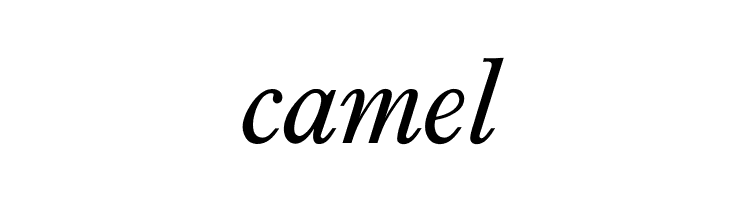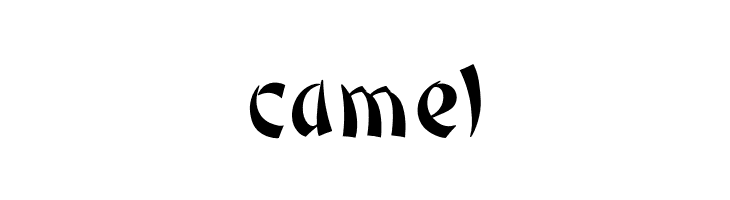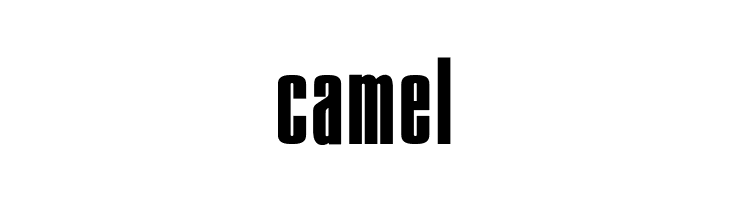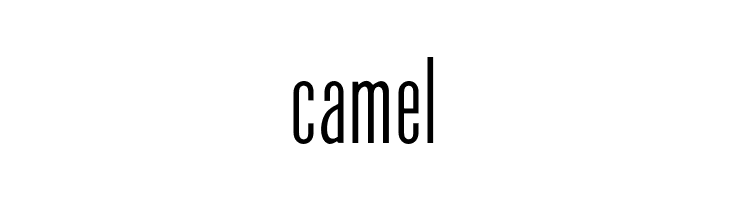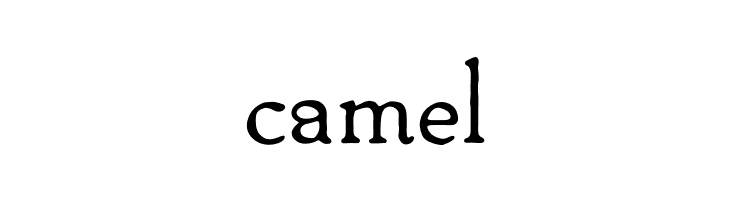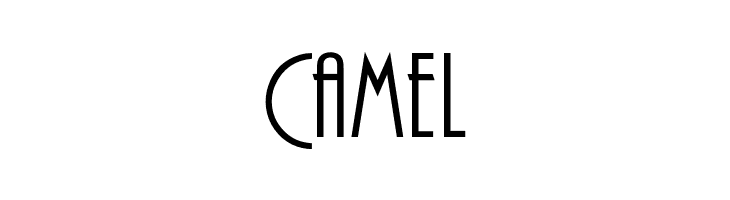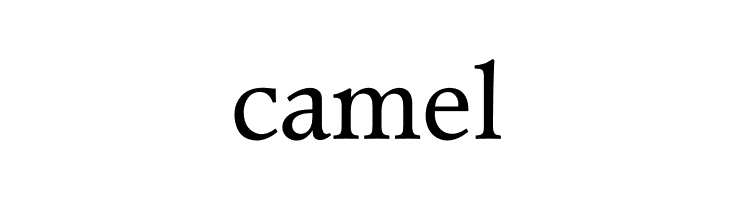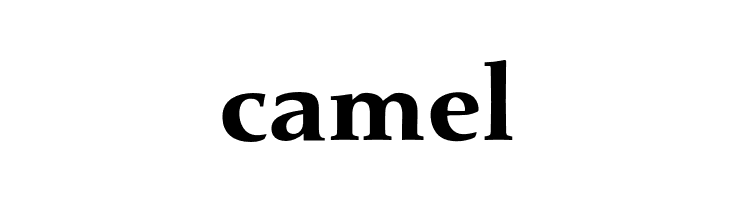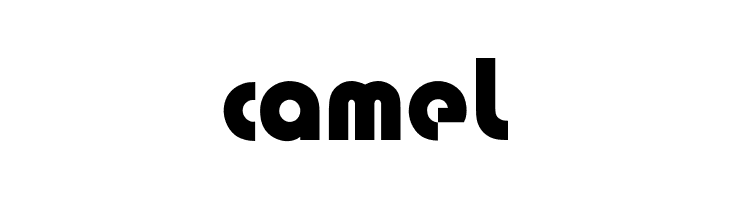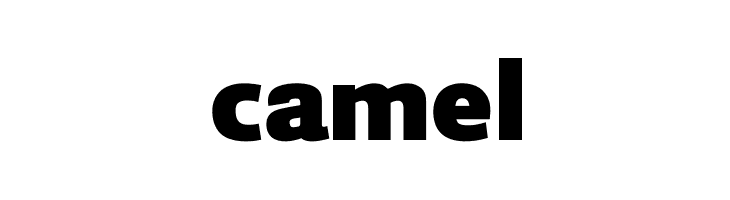
A bold, semi-bold font with strong, well-defined characters and slight stroke contrast.
A modern, geometric font with a futuristic and clean design.
A playful, hand-drawn serif font with a whimsical and modern twist.
A classic serif font with elegant, elongated letterforms and refined details.
A classic serif font with elegant, elongated strokes and high contrast.
A classic serif font with elegant curves and a modern touch.
A bold, classic serif font with a hand-crafted, artistic appearance.
A bold, geometric font with a modern and assertive style.
A classic serif font with high contrast and elegant strokes.
A classic italic serif font with elegant proportions and moderate contrast.
A classic serif font with elegant, thin strokes and a refined, timeless appearance.
A geometric and decorative font with elegant curves and sharp angles.
A bold, high-contrast serif font ideal for impactful headlines.
A bold serif typeface with high contrast and strong, elegant letterforms.
A bold, italic serif font with high contrast and dynamic elegance.
A classic serif font with medium weight and pronounced serifs for a traditional look.
An artistic handwritten font with elegant, slightly irregular strokes.
A classic serif font with elegant strokes and high readability.
A bold, high-contrast font with sharp, angular strokes and a calligraphic influence.
A bold, condensed font with strong vertical emphasis, perfect for headlines.
A classic serif font with elegant, refined strokes and a light weight.
A refined, light, and italic serif font with classic elegance.
A bold, rounded font with a modern and playful style.